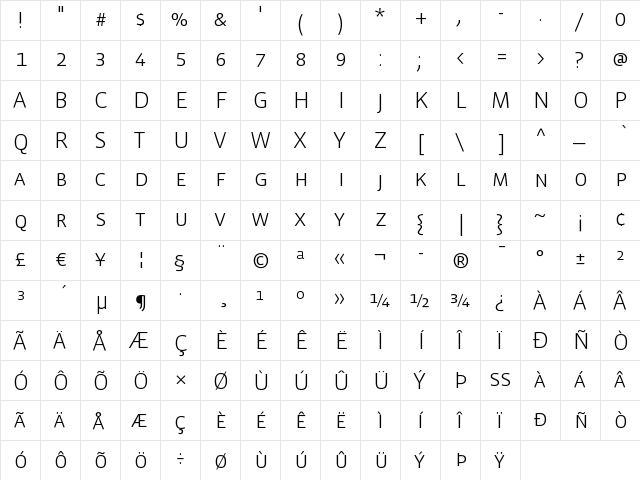
VistaSansSCLight Regular
| Foundry | Xavier Dupre |
| Designer | Xavier Dupre |
Design Context for VistaSansSCLight Typeface
VistaSansSCLight offers clean, dependable letterforms without strong stylistic allegiance, making it a practical choice for designers who need flexibility. Its slender proportions lend an understated elegance to any composition.